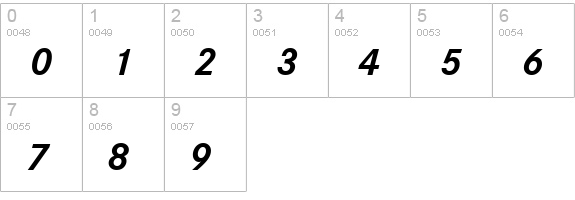
CorpoSLig Bold Italic Font Details
CorpoSLig Bold Italic is a strong, high-contrast, italic variant in the CorpoSLig typeface family \xE2\x80\x94 well suited to headlines, attention-grabbing titles, and strong calls-to-action.
CorpoSLig Bold Italic is a stunning and versatile font that exudes modernity and sophistication. Its bold weight commands attention, while the italic styling adds a touch of elegance and flair. Perfect for creating eye-catching headlines, logos, branding materials, and more, this font is sure to make a bold statement in any design project. And the best part? CorpoSLig Bold Italic is available for free download at FontsMarket.com. You can easily access this high-quality font and elevate your designs without breaking the bank. Don't miss out on the opportunity to add this sleek and stylish typeface to your collection today!